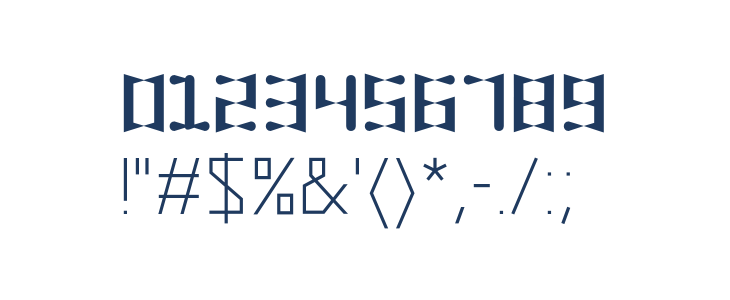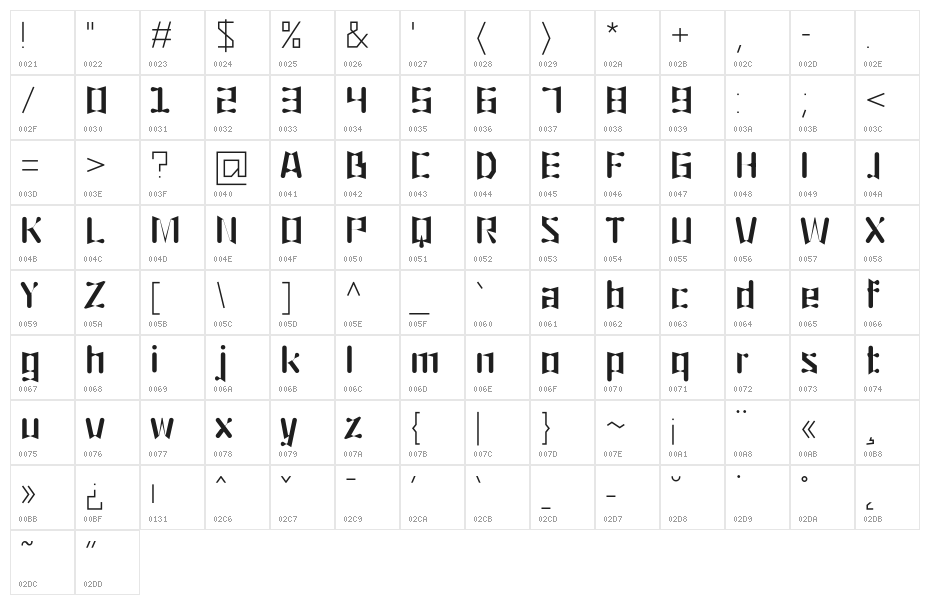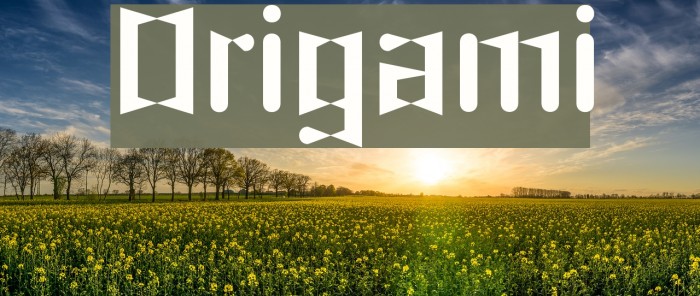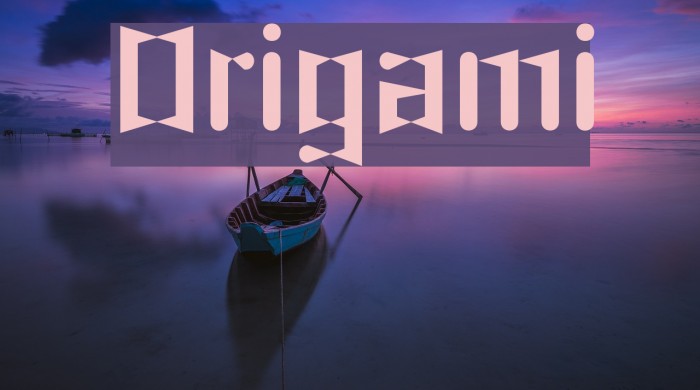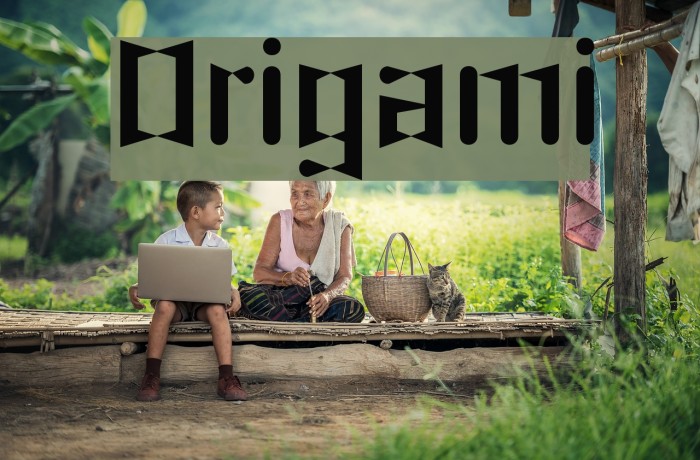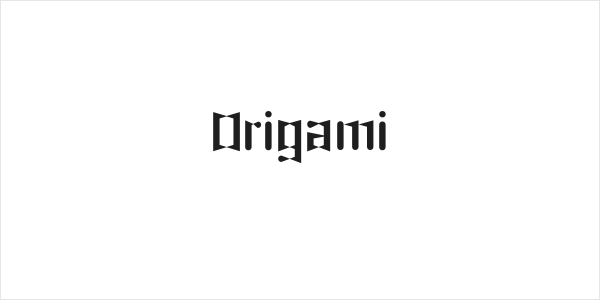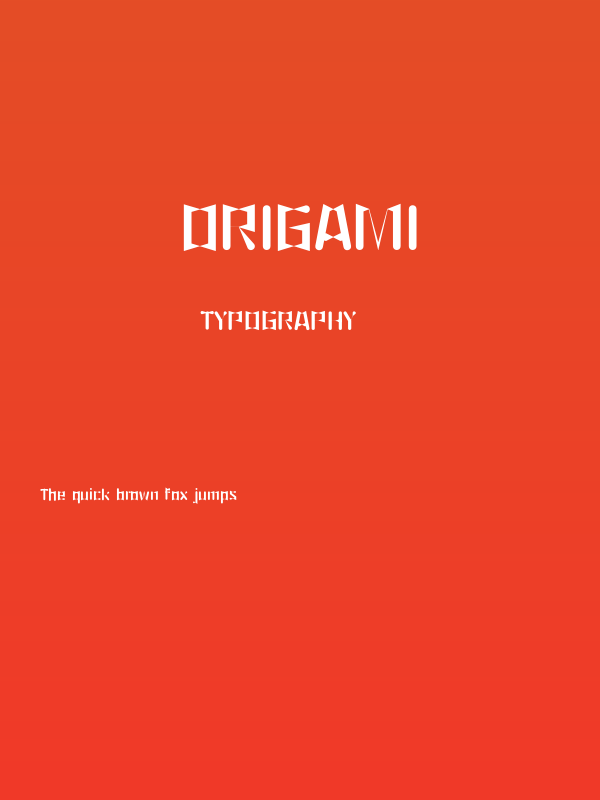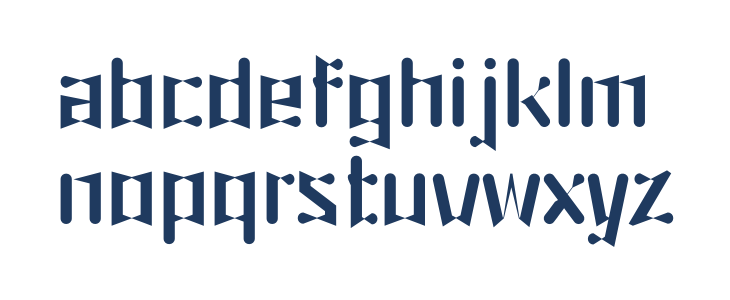
Origami Font
Origami Description
This font features a unique, angular design reminiscent of folded paper, giving it a distinct origami-like appearance. The characters are bold and geometric, with sharp edges and a modern aesthetic. The uppercase and lowercase letters maintain a consistent style, with the uppercase being slightly more pronounced. Numbers and special characters follow the same angular theme, making the font cohesive and visually striking. The design is both artistic and functional, suitable for creative projects that require a contemporary and edgy look.